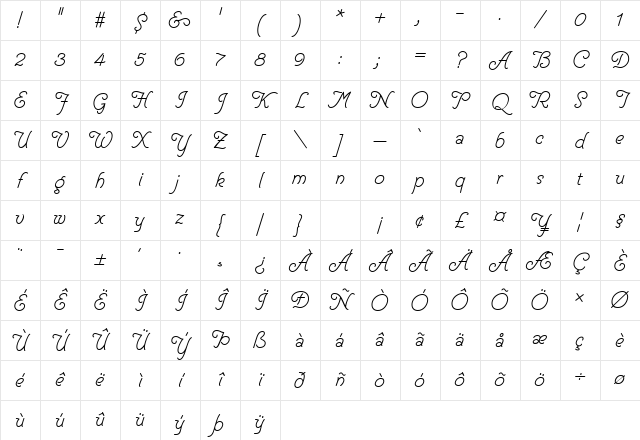
Helve Cursive Regular
Foundry: Toto
Design Context for Helve Cursive
Helve Cursive flows with the natural rhythm of handwritten lettering, making it ideal for designs that call for warmth and personal expression.
Font Pairing: Combine Helve Cursive with a simple geometric sans for maximum contrast - the tension between flowing curves and clean structure is a classic typographic pairing.
Pro Tip: Use Helve Cursive for short runs of text - names, titles, or taglines. Extended body copy in script faces tires the eye quickly.